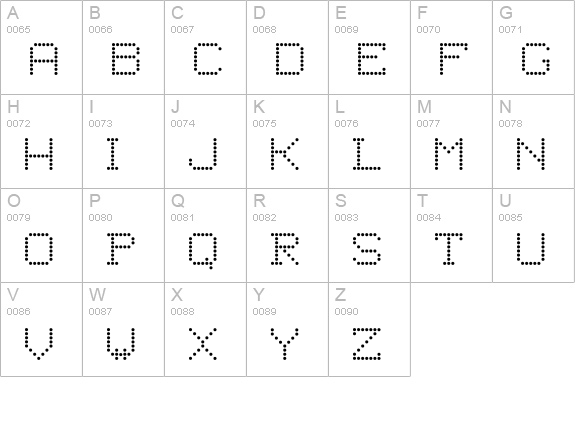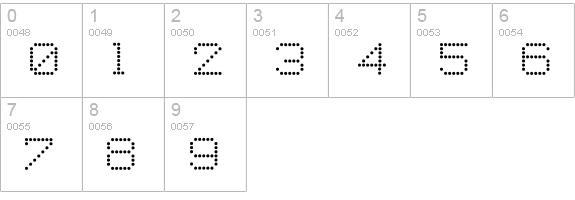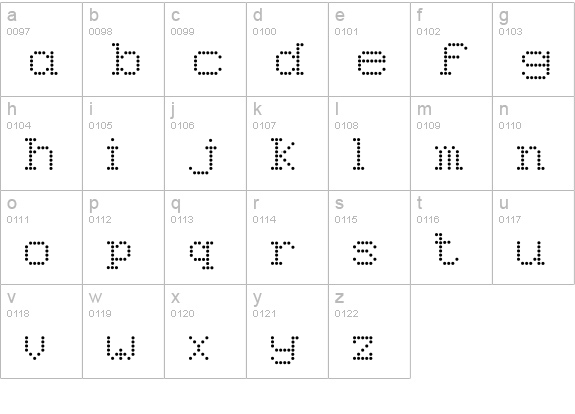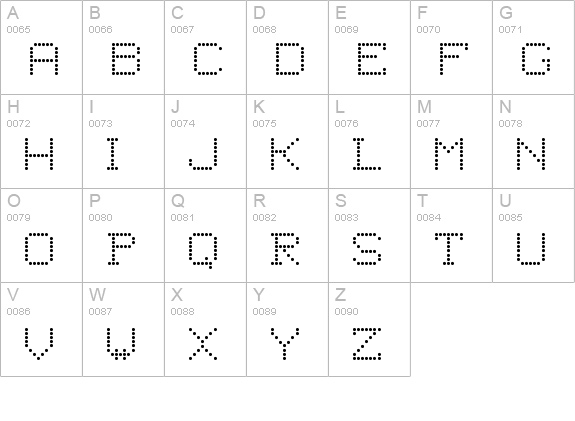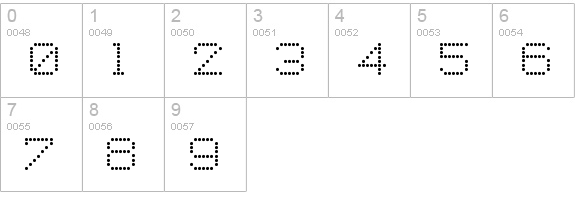
The 8PinMatrix font is a unique and modern typeface that features a distinctive design reminiscent of digital displays and retro technology. With its clean lines and sharp edges, this font is perfect for creating eye-catching headlines, logos, and designs that stand out. The 8PinMatrix font is available for free download at FontsMarket.com, making it accessible to anyone looking to add a touch of technological flair to their projects. Whether you're working on a website, poster, or branding materials, this font is sure to make a bold statement and leave a lasting impression. Download it today and unleash your creativity with the 8PinMatrix font!